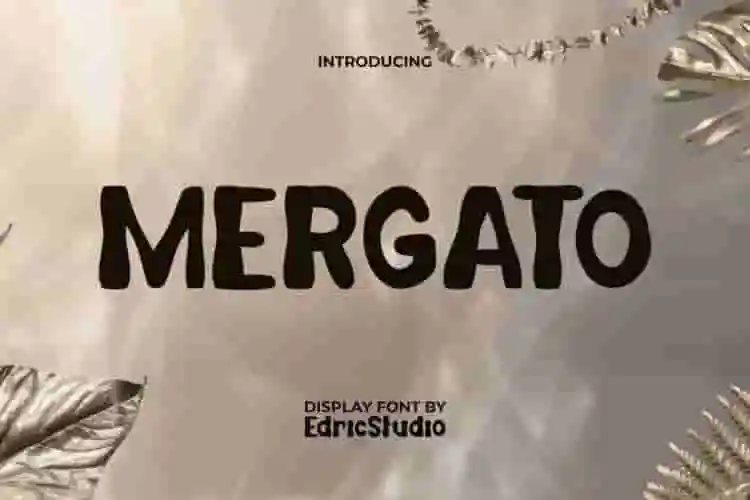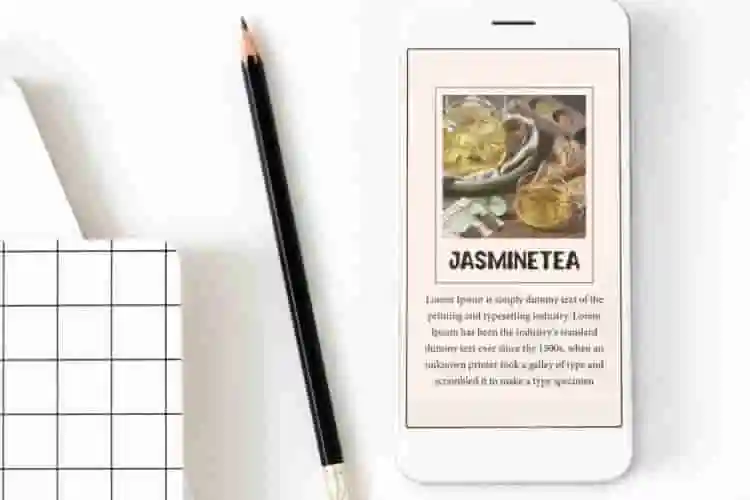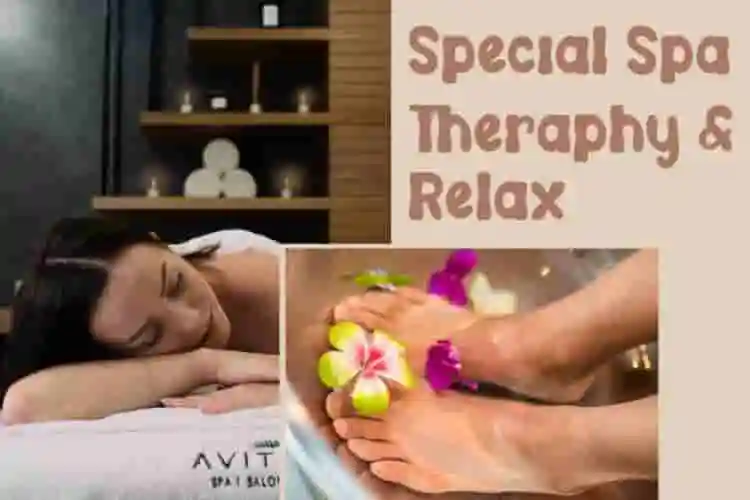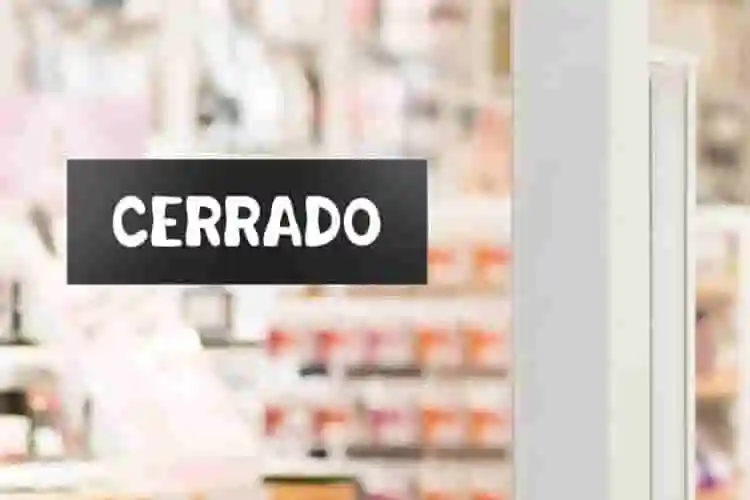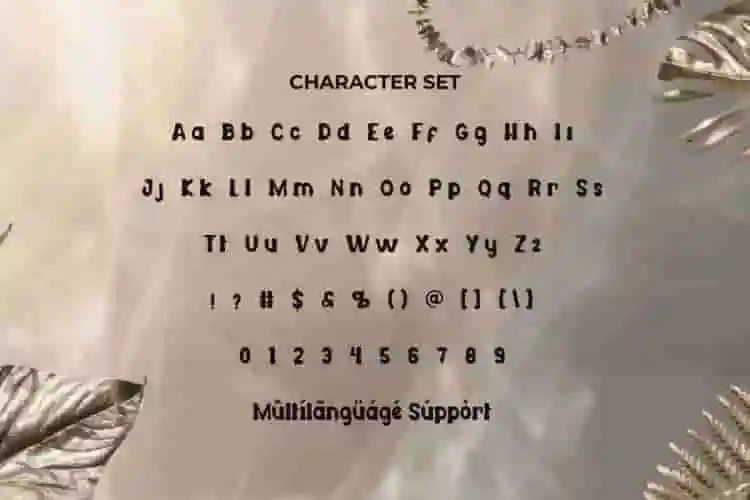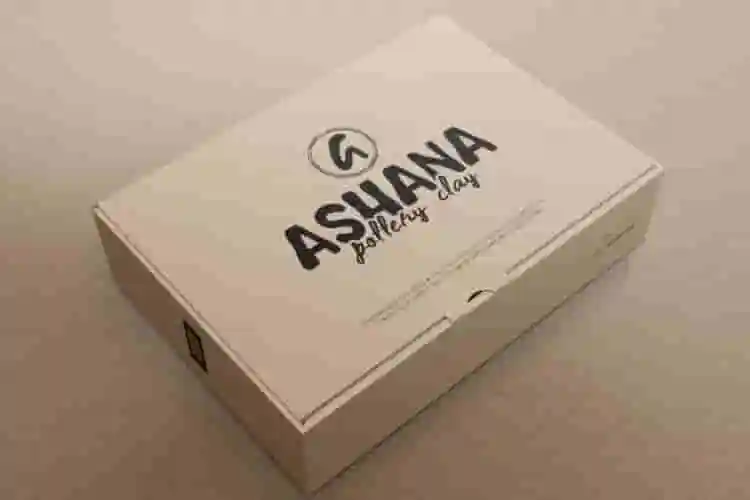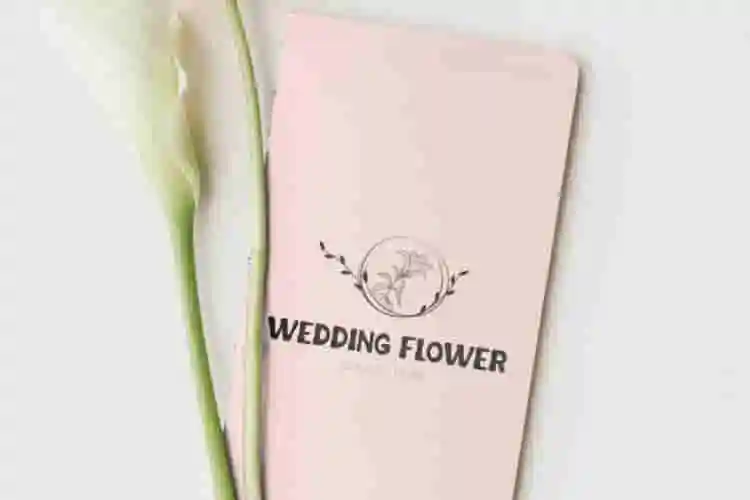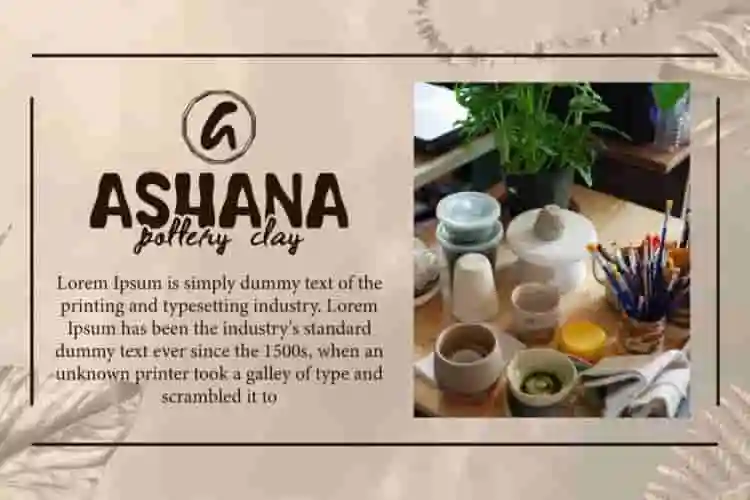
Mergato Font is an abstract playful yet modern display font by Edric Studio. The letter characters in this font have waves that are similar to the shape of clay when made. It will be suitable for any business, such as accessories, beauty product, cafe, entertainment, fashion, kids stuff, photography, printing, publishing, travel, writer, and many more!
Mergato Font comes with full set of Uppercase and Lowercase Basic Characters, Number, a large range of Punctuation, and Symbol. It has cute and adorable set, perfectly managed with well spaced and kerning. Mergato Font will be able to complement for any design (with extended license) including: brand image, cover, custom design, invitation, label, merchandise, packaging design, poster, quote, screen print, signage, stationery, sticker, title, website page, etc.
Introducing Mergato Display Font, a one-of-a-kind display typeface designed to turn heads and spark curiosity. With its abstract curves, experimental shapes, and high-contrast style, Mergato is made for designers who aren’t afraid to break the mold.
This unique display font blends modern elegance with a creative twist — perfect for fashion branding, visual art, posters, album covers, and editorial layouts that need an avant-garde touch. Every letter is a visual element, crafted to bring character and edge to your composition.
Whether you’re working on a creative agency identity, a runway lookbook, or a bold gallery flyer, Mergato Display Font delivers that “different” factor your project craves.
- Unique & Abstract Letterforms
- All-Caps Typeface